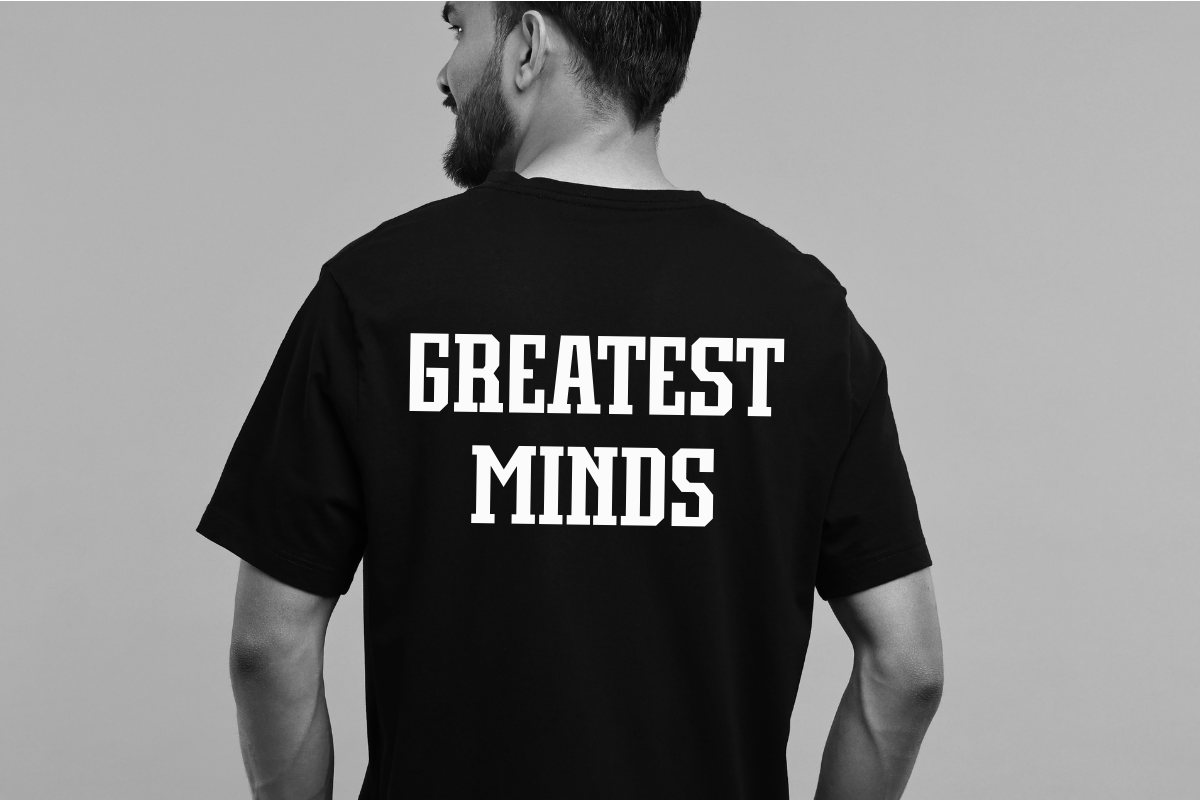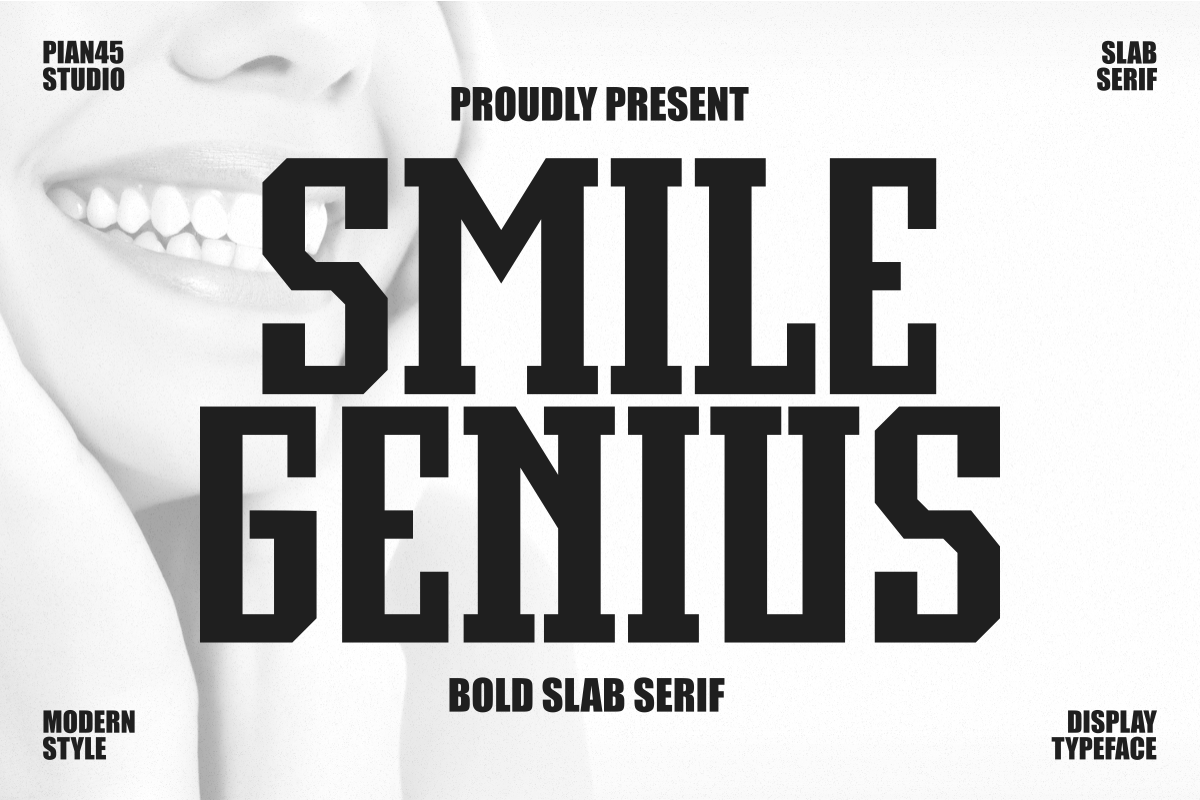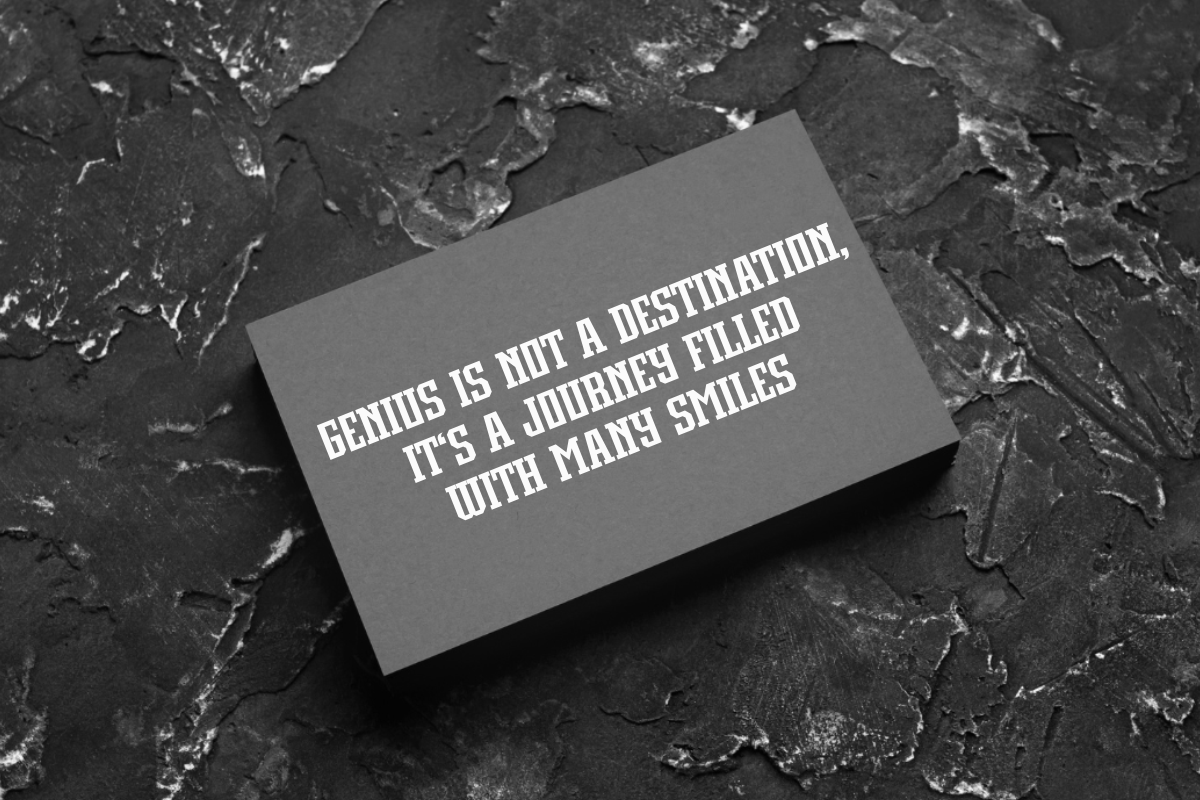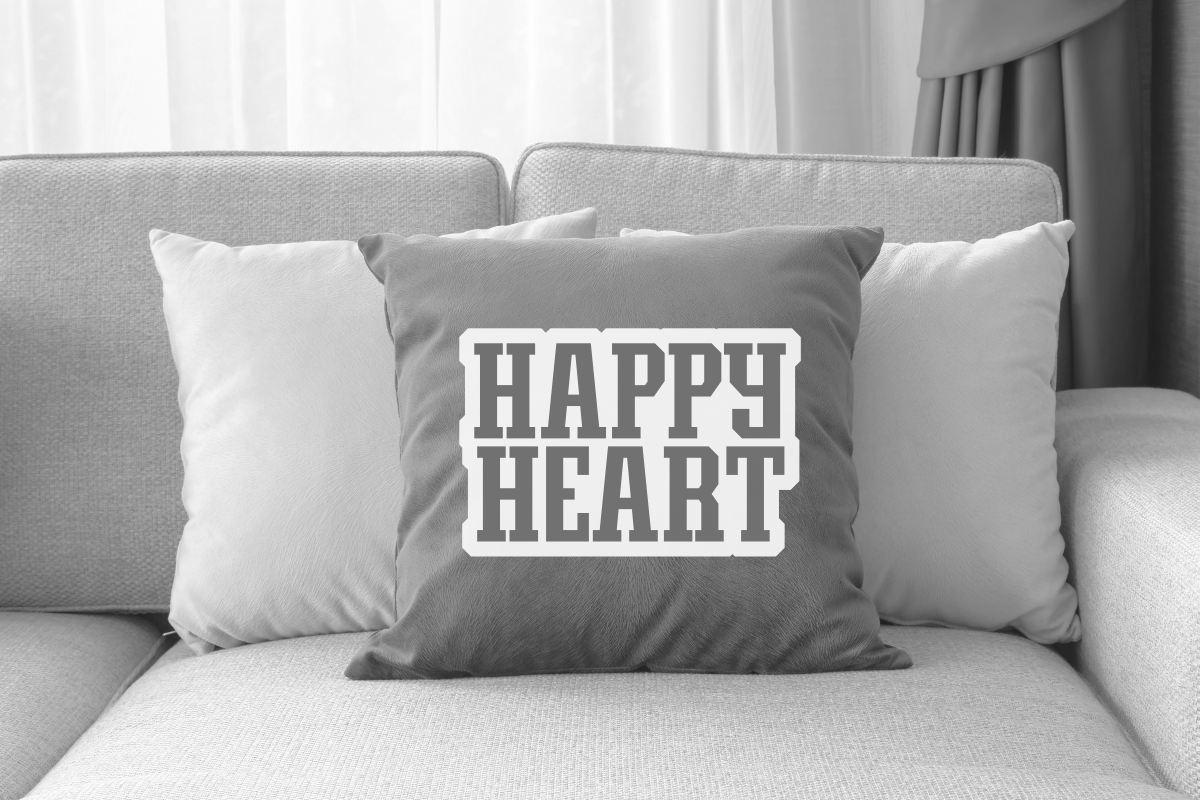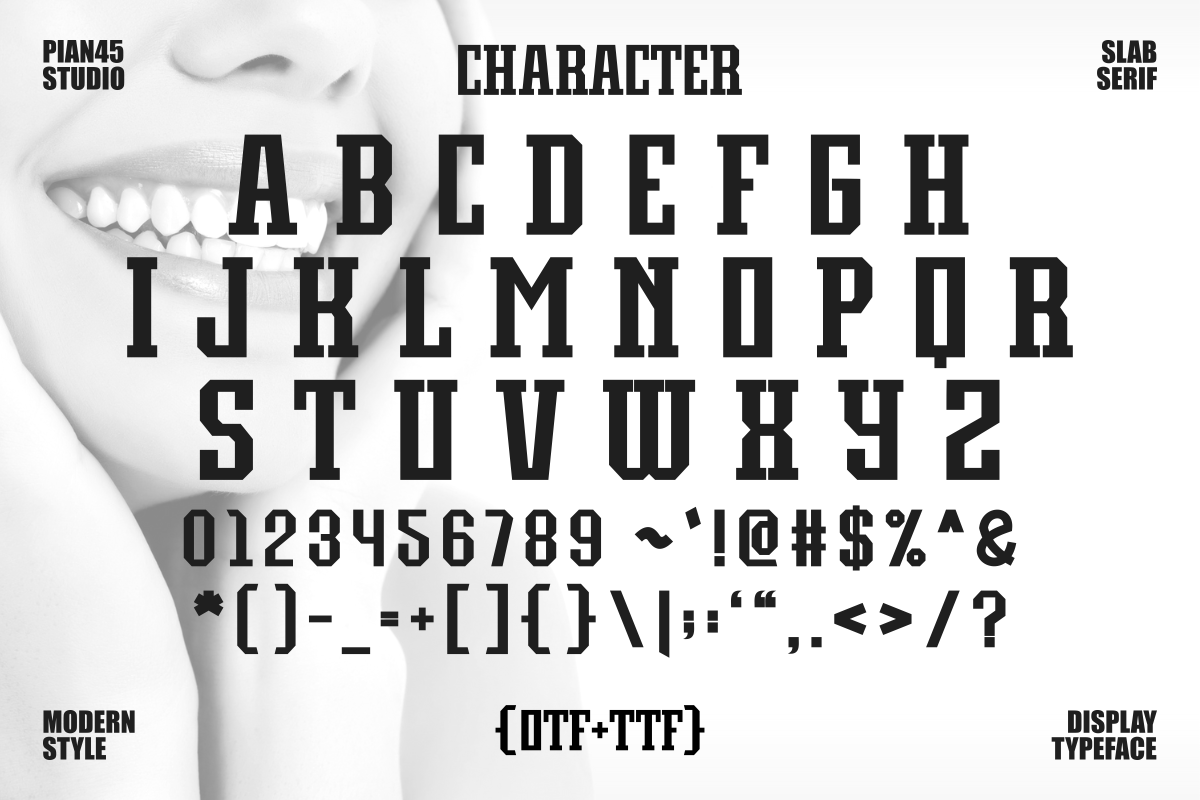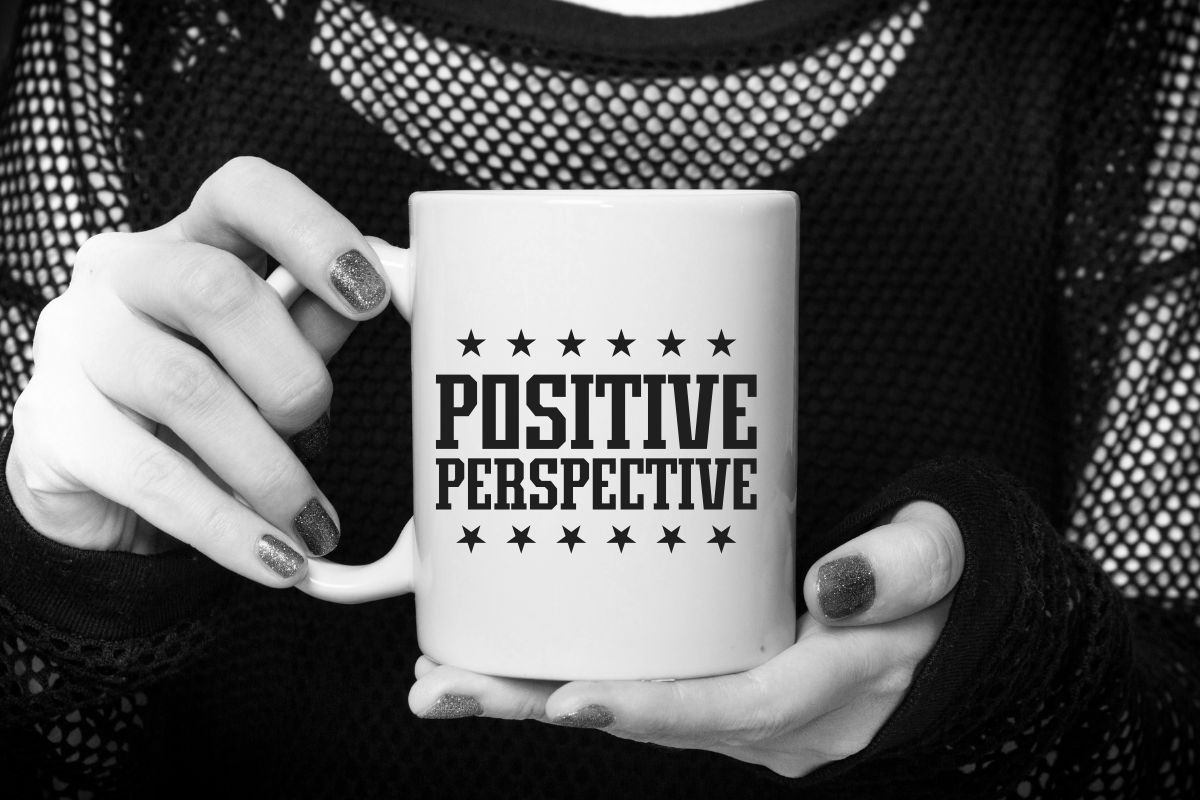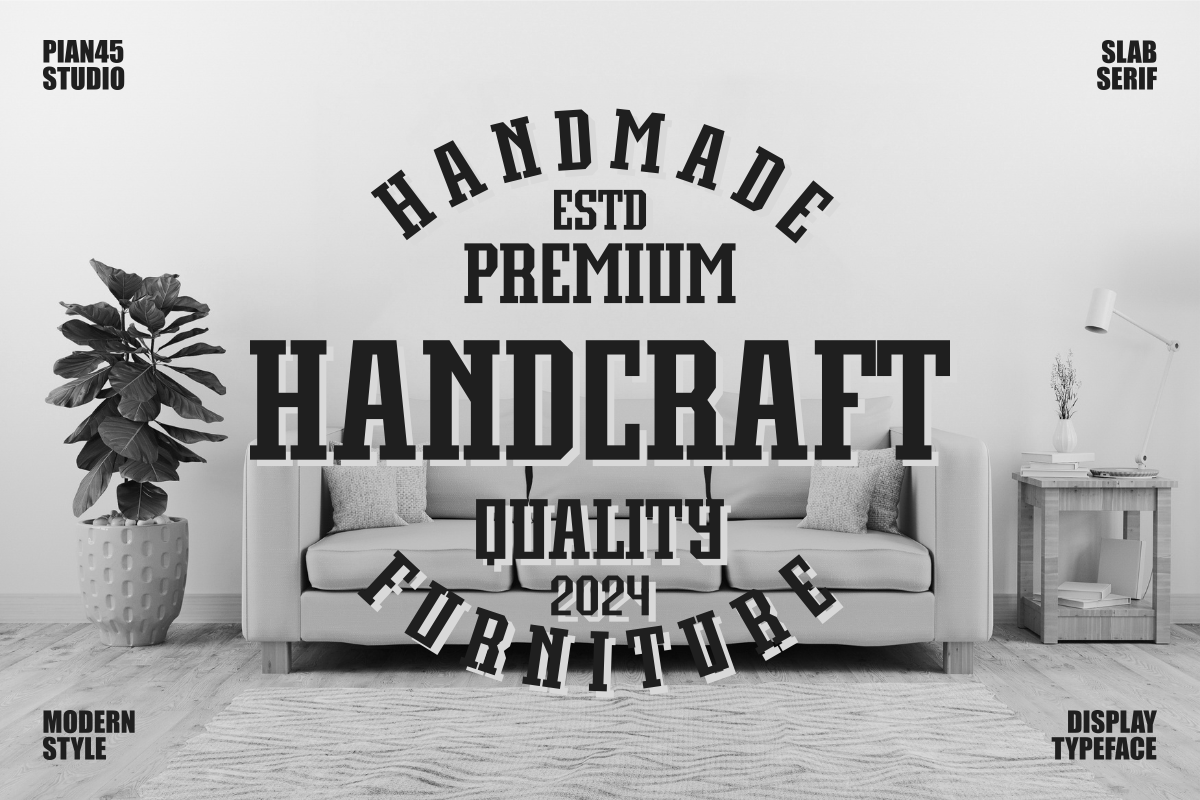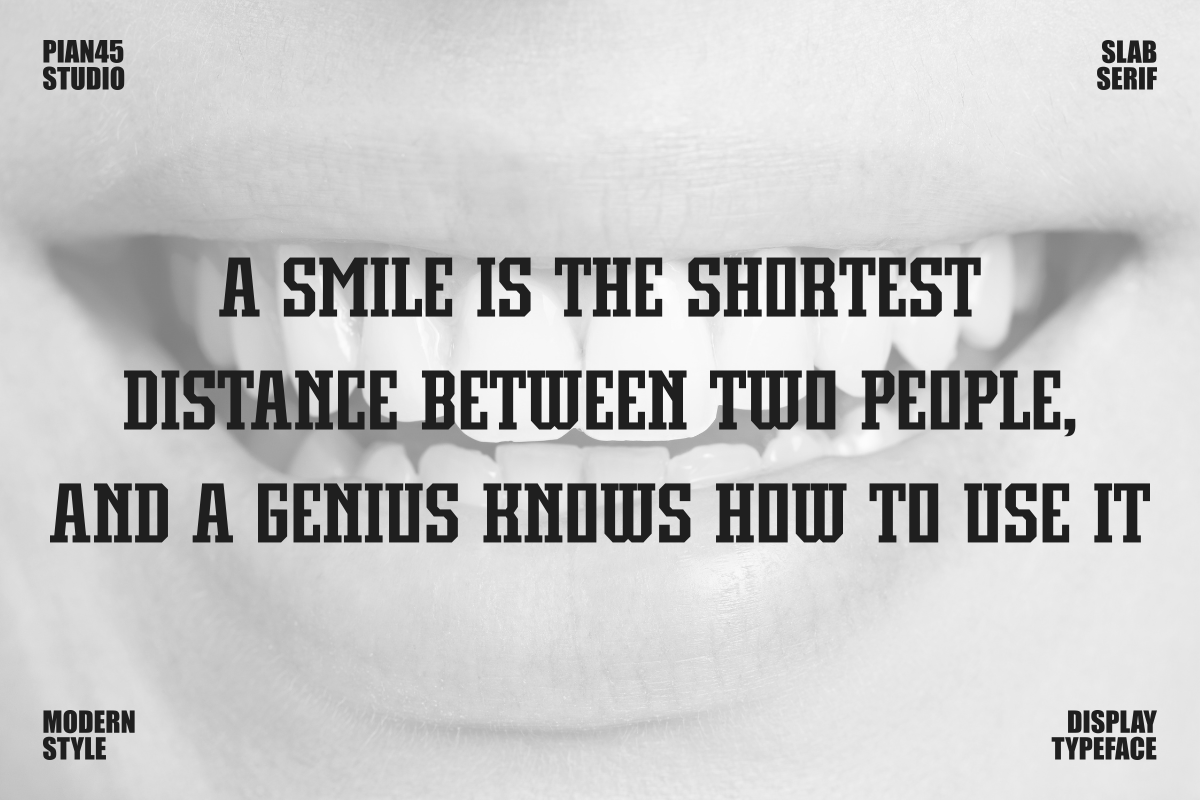
Smile Genius - Bold Slab Serif
Smile Genius is a bold and condensed slab serif font that exudes confidence and intelligence. Perfect for quotes, posters, and merchandise like t-shirts, mugs, pillows, tote bags, stickers, and greeting cards.